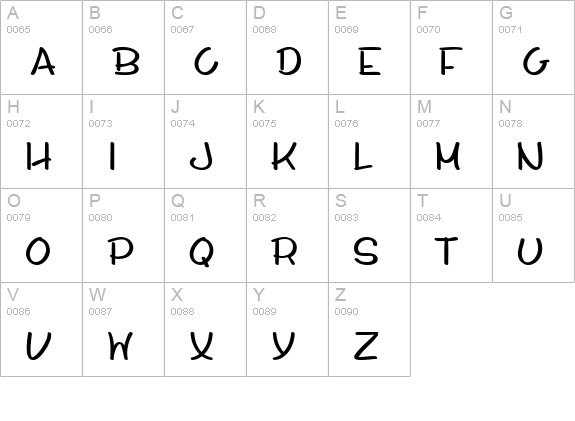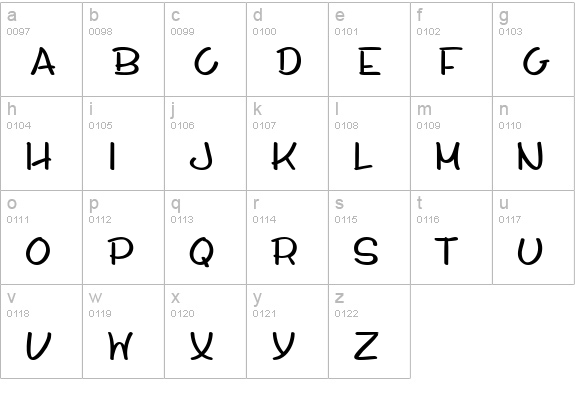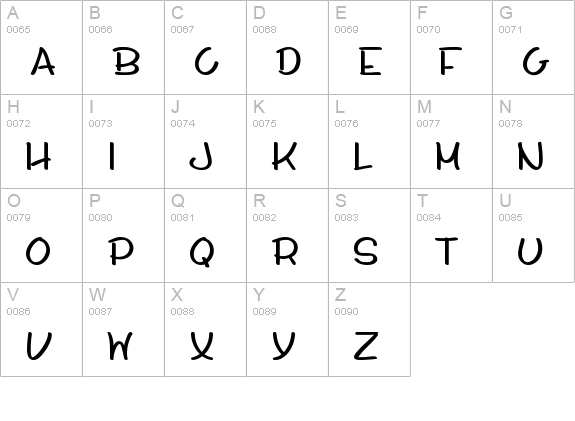
Whiteboard Modern Demo Font Details
Whiteboard Modern Demo font is a stunning display typeface that exudes a contemporary and sophisticated vibe. Its clean lines and modern aesthetic make it perfect for a variety of design projects, from branding to advertising to editorial design. This font features a unique combination of sharp angles and smooth curves, giving it a distinctive look that is sure to catch the eye. The best part? Whiteboard Modern Demo font is completely free to download at FontsMarket.com! Now you can elevate your designs with this stylish and versatile typeface without breaking the bank. Whether you're working on a logo, poster, website, or any other creative project, Whiteboard Modern Demo font is sure to make a bold statement and leave a lasting impression. Download it today and start adding a touch of modern elegance to your designs.